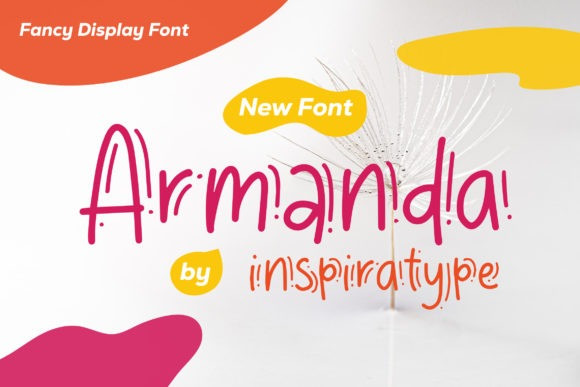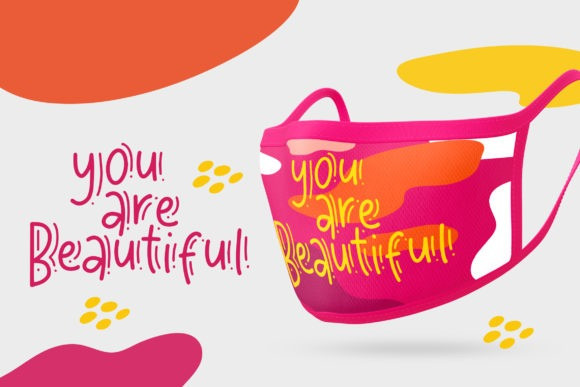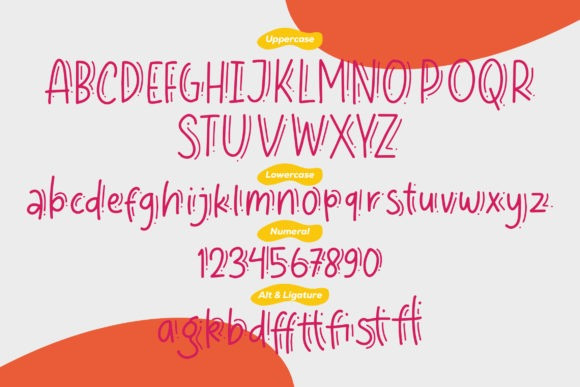
Armanda Display Font
Armanda is a simple, cartoon like and friendly display font. It has a cute 3d effect and as a result it will make an original impact on your creations.